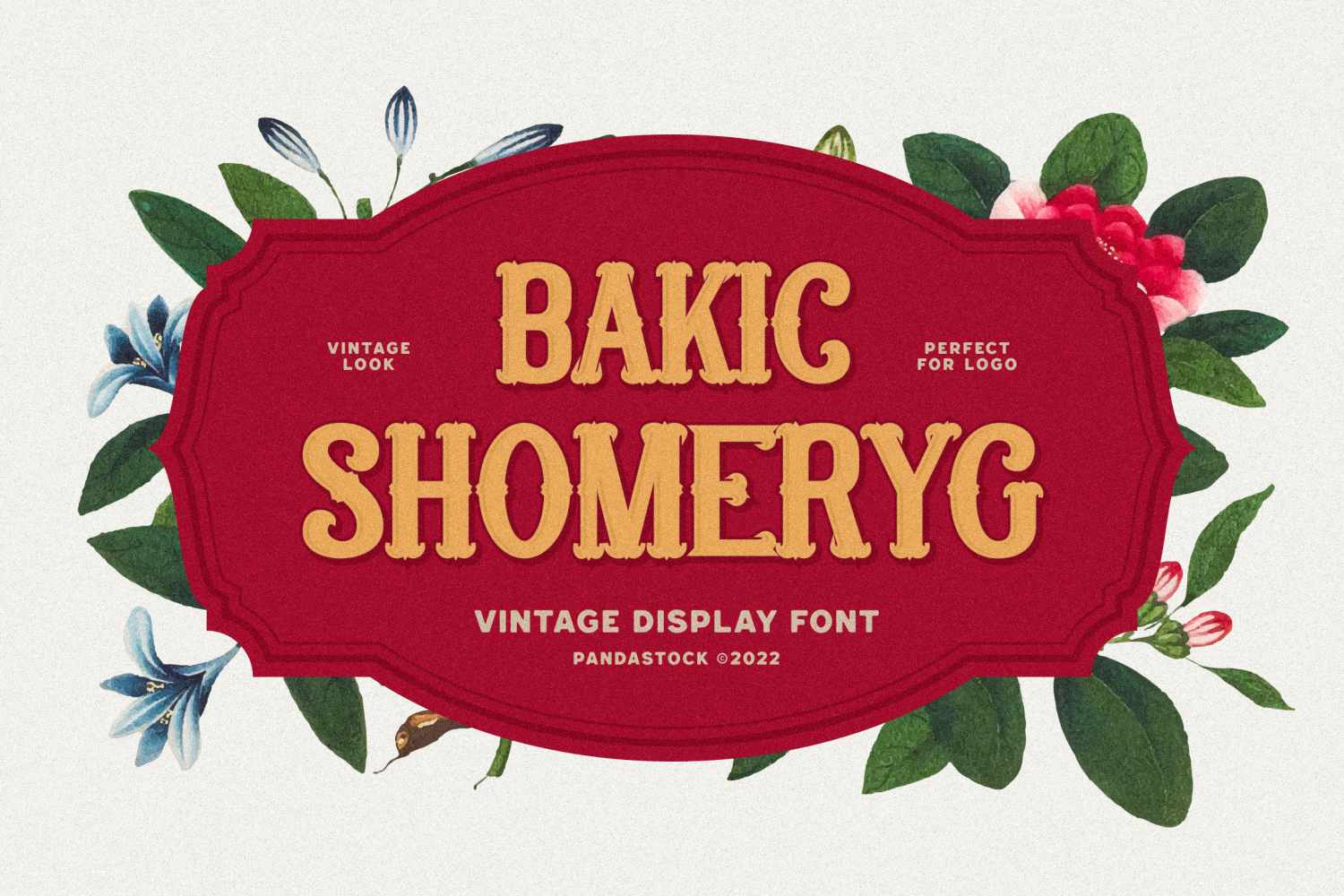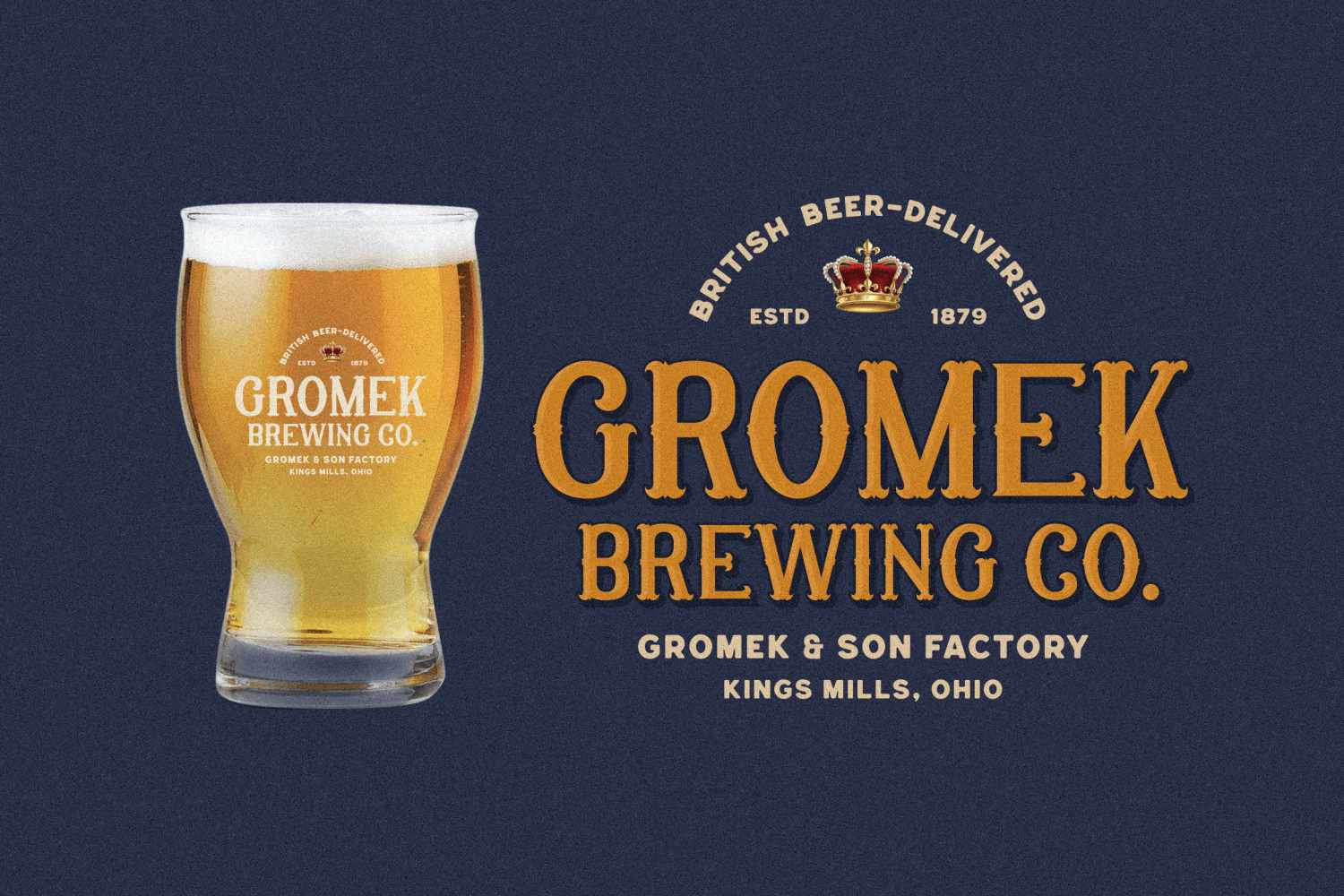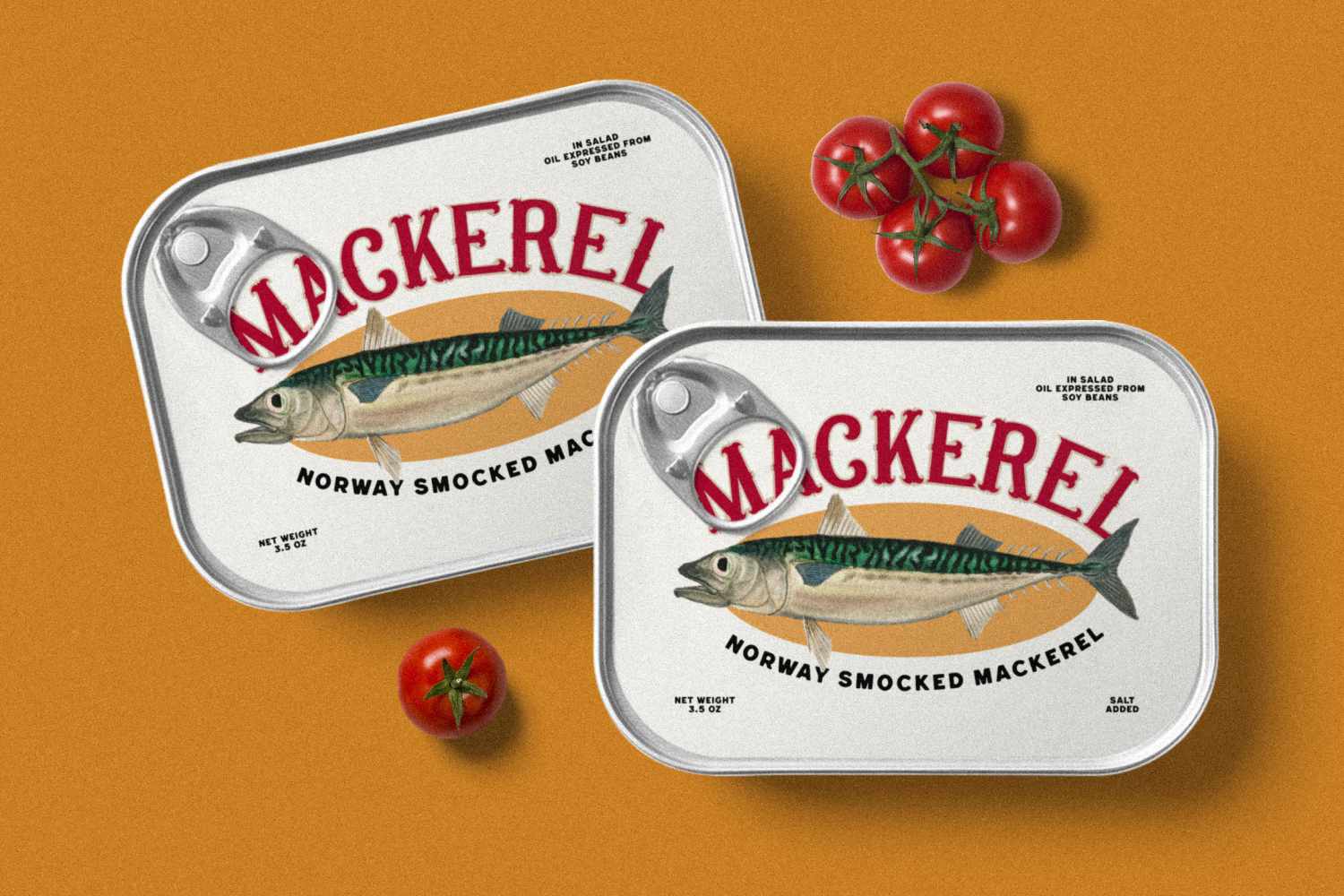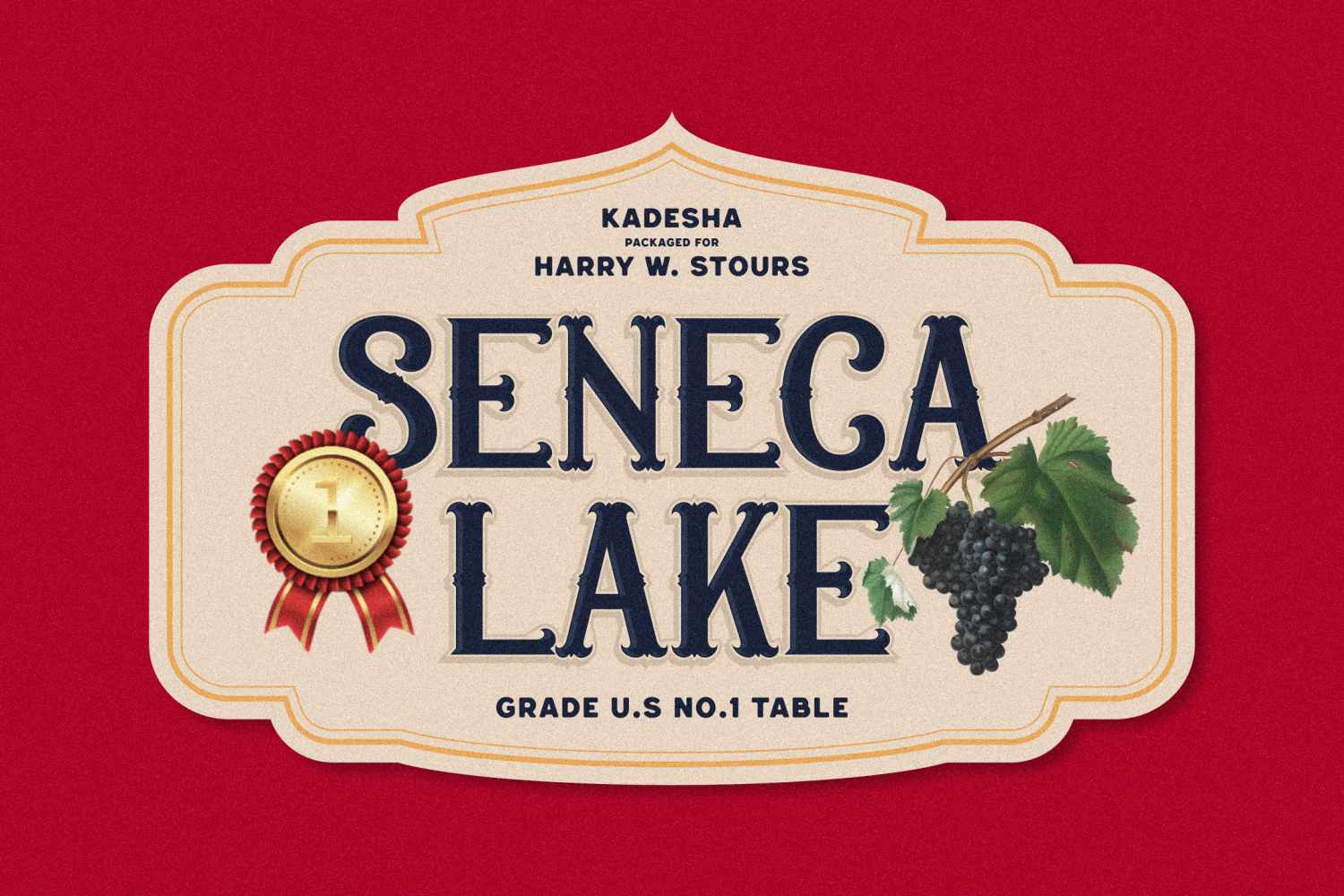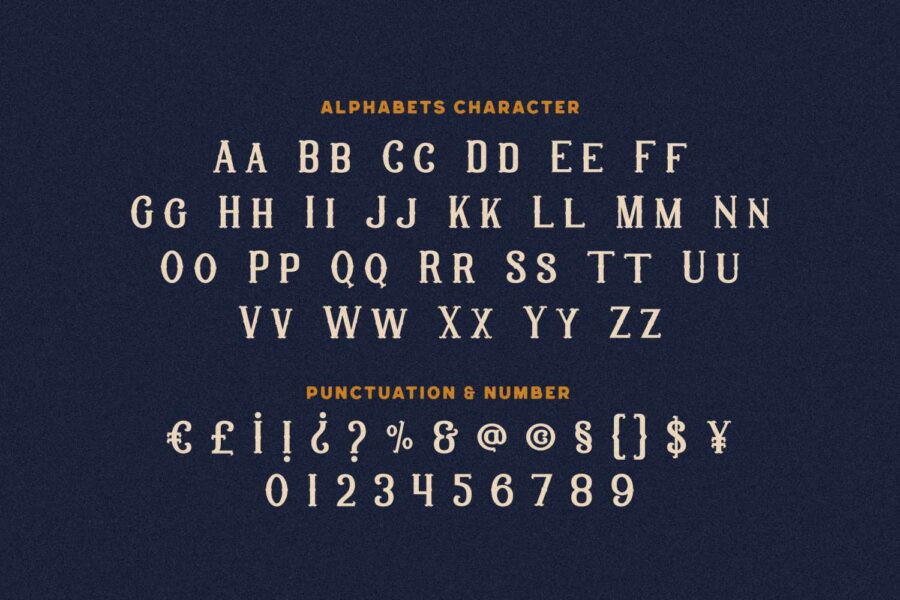
Bakic Shomeryg
Bakic Shomeryg is a Vintage Display Font with bold character and classic charm. Inspired by retro typography, it features textured letterforms that bring a handcrafted, authentic feel to your design projects. Perfect for logos, beer labels, packaging, and branding, Bakic Shomeryg captures the spirit of timeless design with a strong, nostalgic presence.
Crafted for versatility, Bakic Shomeryg works beautifully in both large headlines and detailed label designs. Its rugged yet elegant style makes it ideal for vintage posters, signage, apparel, and editorial layouts, ensuring your creative work stands out with heritage-inspired appeal.